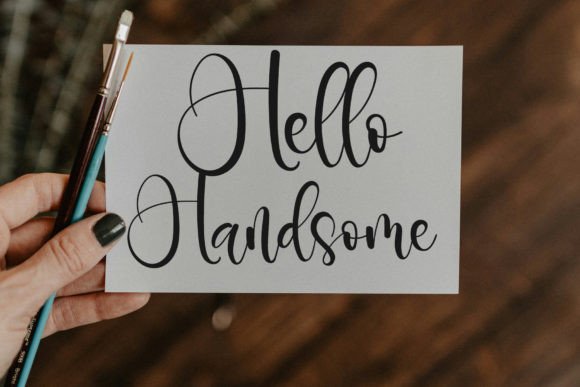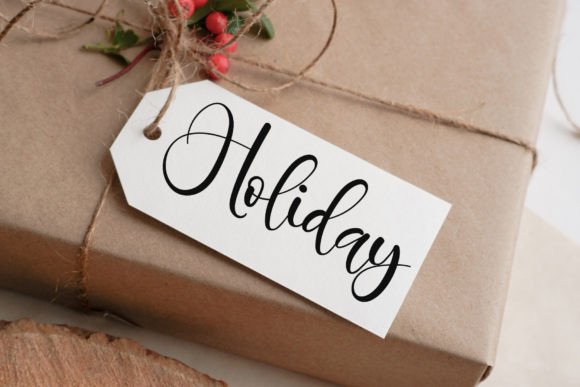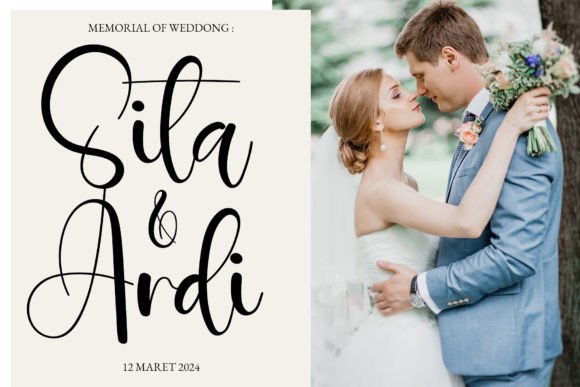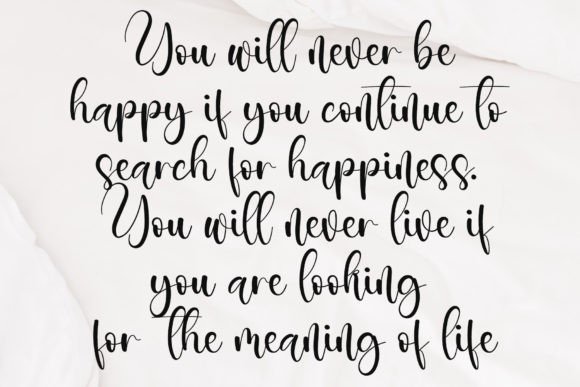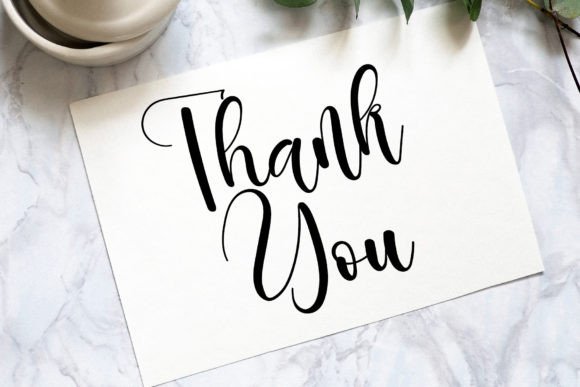
Introducing Handwash Font: The Sweet and Elegant Cursive Handwritten Font
Are you looking for a font that can add a touch of elegance and romance to your designs? Look no further than Handwash Font, a beautiful and sweet cursive handwritten font that is perfect for a variety of design projects. In this article, we’ll take a closer look at the features and benefits of Handwash Font, and explore how you can use it to elevate your designs.
What is Handwash Font?
Handwash Font is a cursive handwritten font that is designed to be both elegant and casual. Its gentle curves and flowing lines make it perfect for adding a touch of sophistication to your designs, while its playful and whimsical feel ensures that it remains approachable and friendly. Whether you’re working on a branding project, a wedding invitation, or a marketing campaign, Handwash Font is the perfect choice.
Features of Handwash Font
So, what makes Handwash Font so special? Here are just a few of its key features:
- Sweet and Cursive: Handwash Font is a cursive handwritten font with a sweet and gentle feel. Its flowing lines and curves make it perfect for adding a touch of elegance to your designs.
- Versatile: Handwash Font is incredibly versatile, and can be used on a wide range of design projects. Whether you’re working on a logo, a brochure, or a social media graphic, Handwash Font is the perfect choice.
- Easy to Read: Despite its elegant feel, Handwash Font is incredibly easy to read. This makes it perfect for use in body copy, as well as in headings and titles.
- Unique and Creative: Handwash Font is a truly unique and creative font that will help your designs stand out from the crowd.
Use Cases for Handwash Font
So, how can you use Handwash Font in your designs? Here are just a few ideas to get you started:
- Branding: Handwash Font is perfect for use in branding projects, such as logos, business cards, and letterheads.
- Wedding Design: Handwash Font is a popular choice for wedding designs, including invitations, programs, and place cards.
- Greeting Cards: Handwash Font is perfect for use in greeting cards, including birthday cards, thank you cards, and holiday cards.
- Fashion and Beauty: Handwash Font is a great choice for fashion and beauty brands, and can be used in designs such as lookbooks, brochures, and social media graphics.
- Marketing and Promotion: Handwash Font can be used in marketing and promotional materials, such as flyers, posters, and banners.
Tips for Using Handwash Font
Here are a few tips for getting the most out of Handwash Font:
- Use it Sparingly: While Handwash Font is beautiful, it can be overwhelming if used too much. Use it sparingly to add a touch of elegance to your designs.
- Pair it with Other Fonts: Handwash Font pairs beautifully with other fonts, such as sans-serif fonts and serif fonts. Experiment with different pairings to find the one that works best for your design.
- Experiment with Colors: Handwash Font looks beautiful in a range of colors, from bold and bright to soft and pastel. Experiment with different colors to find the one that works best for your design.
Handwash Font is a beautiful and elegant cursive handwritten font that is perfect for a wide range of design projects. Its sweet and gentle feel makes it perfect for adding a touch of sophistication to your designs, while its playful and whimsical feel ensures that it remains approachable and friendly. Whether you’re a designer, a crafter, or a DIY enthusiast, Handwash Font is a great choice for any project.